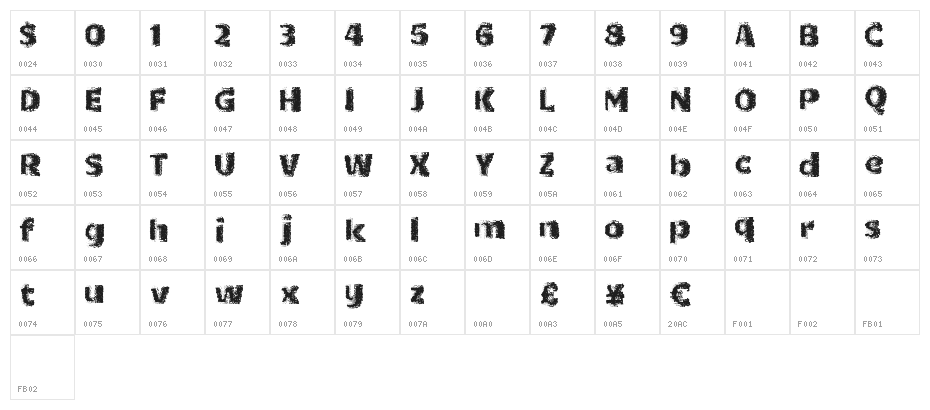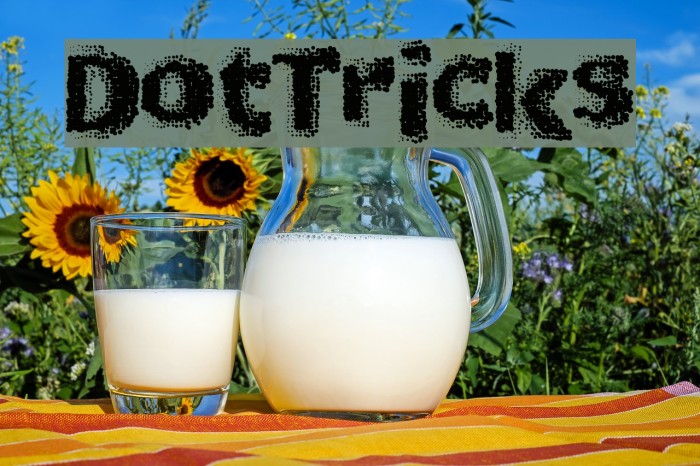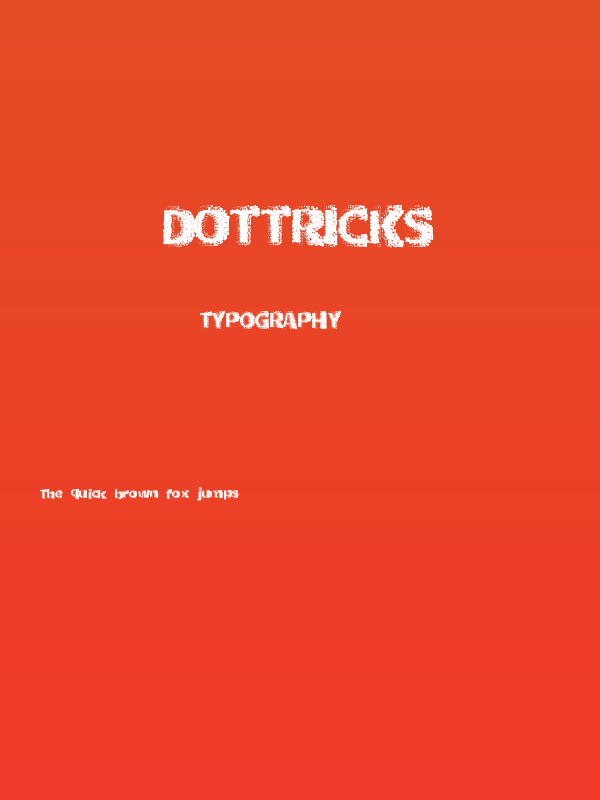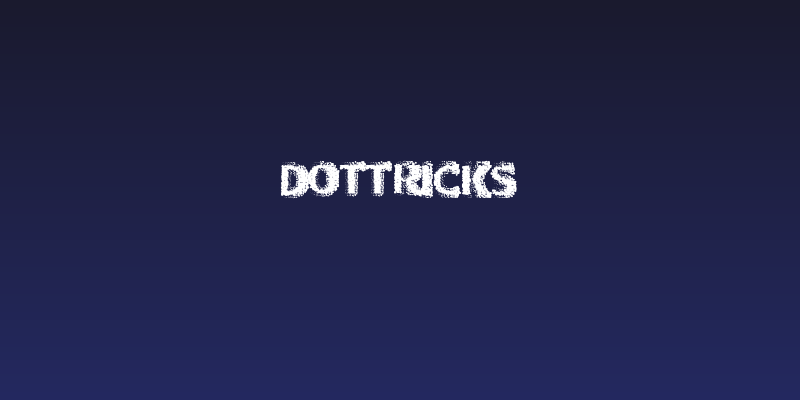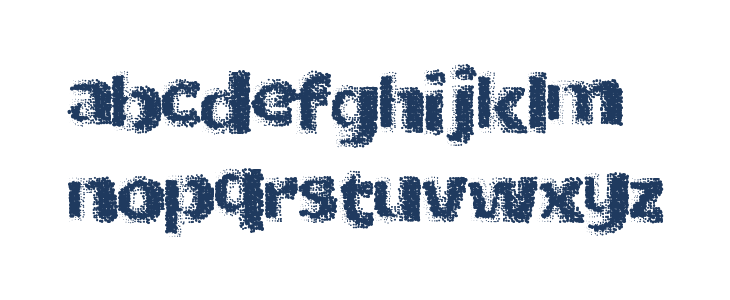
DotTricks Font
DotTricks Description
This font features a unique dotted texture that creates a visually striking effect. The characters are bold and have a playful, artistic appearance, making them stand out in any design. The uppercase and lowercase letters maintain a consistent style, with rounded edges and a uniform dot pattern that gives a cohesive look. The numbers and special characters follow the same design principles, ensuring a harmonious overall appearance. This font's distinctive style is perfect for creative projects that require a touch of whimsy and originality.
| Proposed Projects | Ideal for posters, album covers, children's book titles, and creative branding projects. |